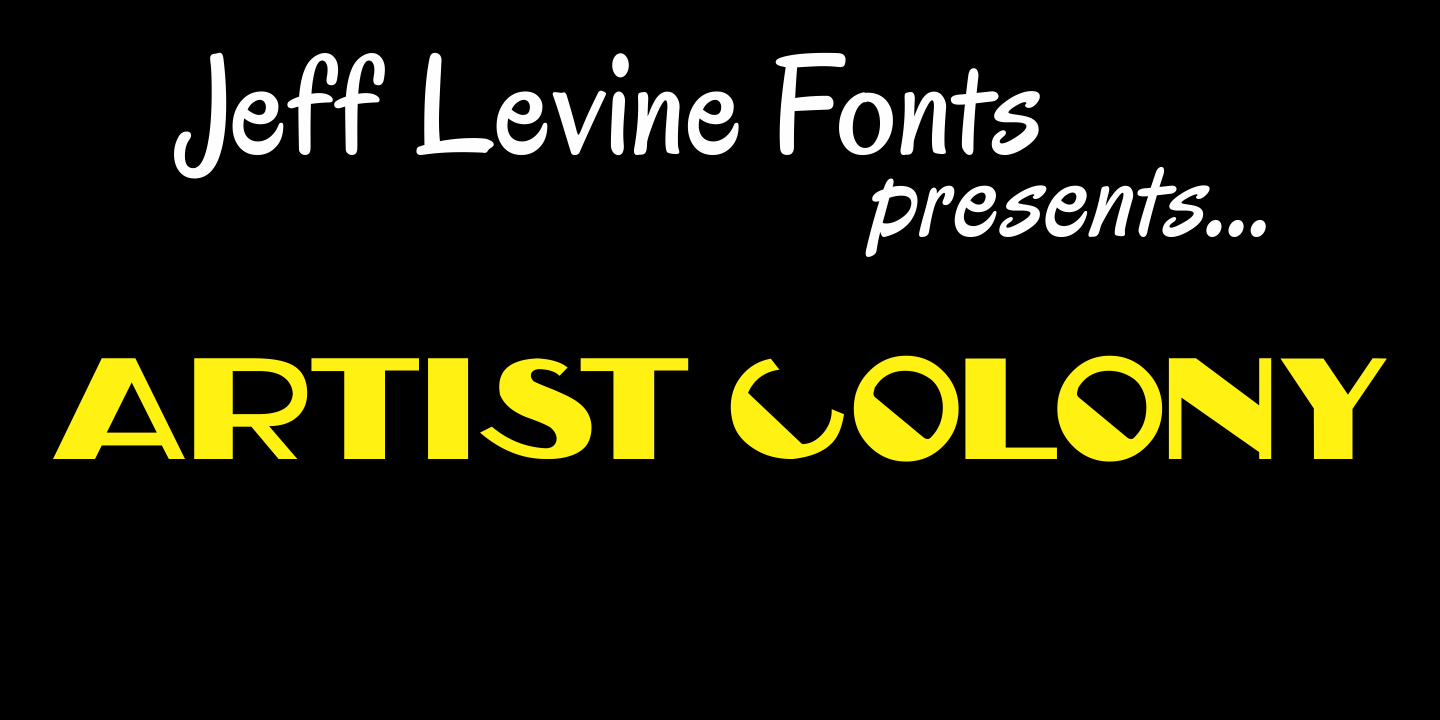
Artist Colony
Artist Colony JNL is the third type design inspired by some online examples from an early 20th Century French book of decorative hand lettering. While Arte Critique JNL and French Art Initials JNL embrace the Art Noveau style, Artist Colony JNL leans more toward the emerging Art Deco Movement of the late 1920s and early 1930s.